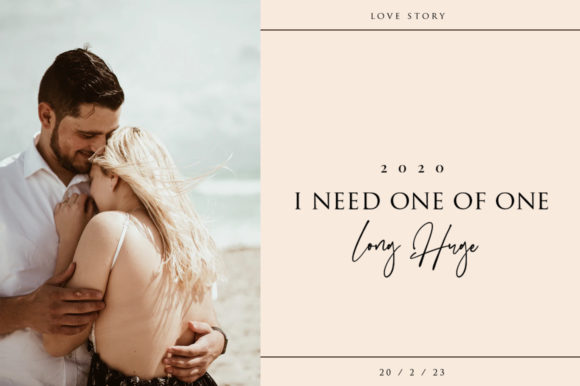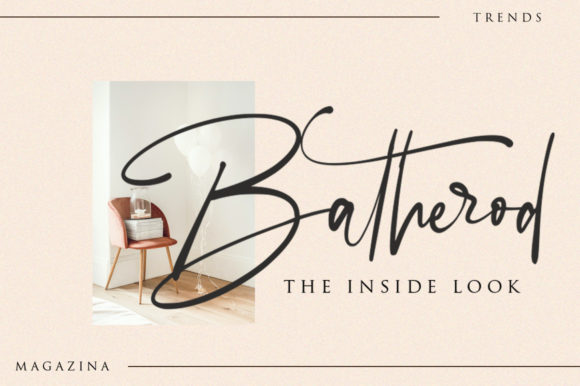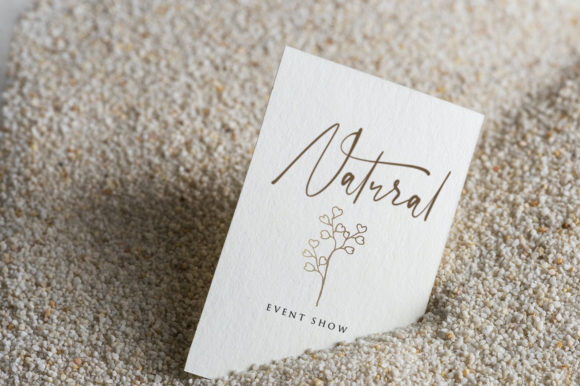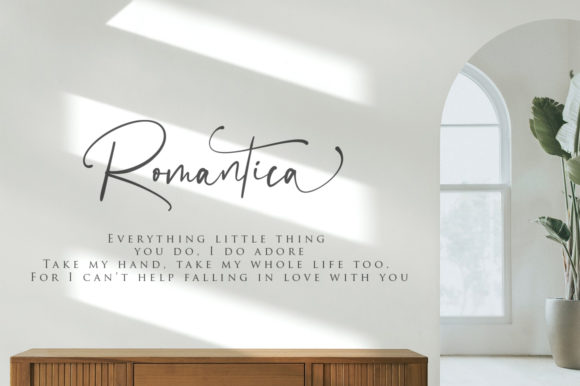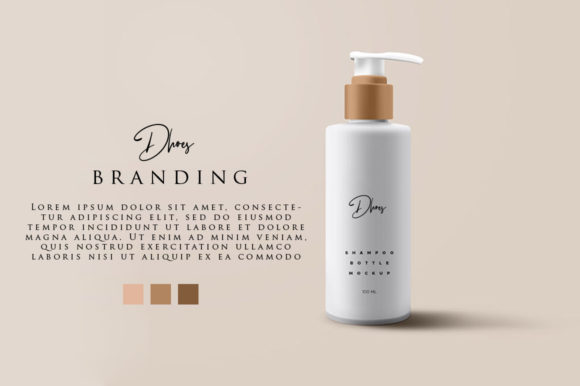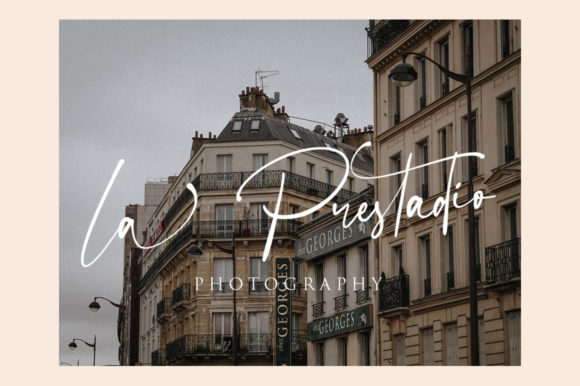
Gustera Font: A Thin and Beautiful Handwritten Masterpiece
Are you a designer or crafter looking for a unique and versatile font to elevate your designs? Look no further than Gustera Font, a thin and beautiful handwritten font that is sure to capture your heart. With its distinct and well-rounded letters, Gustera is a masterpiece that can add a touch of elegance and sophistication to any design project.
What Makes Gustera Font So Special?
Gustera Font is a one-of-a-kind handwritten font that boasts a range of characteristics that set it apart from other fonts. Here are just a few reasons why Gustera is a must-have for designers and crafters:
- Thin and elegant: Gustera Font features a thin and delicate design that exudes elegance and refinement. Its slender lines and curves make it perfect for creating sophisticated designs that require a touch of luxury.
- Beautifully rounded letters: The letters in Gustera Font are carefully crafted with rounded edges that give the font a friendly and approachable feel. This makes it ideal for designs that require a personal touch, such as invitations, greeting cards, and social media graphics.
- Versatile style: Gustera Font is incredibly versatile, making it suitable for a wide range of design projects. Whether you’re creating a logo, brochure, or website, Gustera can adapt to any style or theme.
- PUA encoded: Gustera Font is PUA (Private Use Area) encoded, which means that you can access all of the glyphs and swashes with ease. This feature makes it easy to customize your designs and add unique touches that set them apart.
Uses for Gustera Font
Gustera Font is a versatile font that can be used for a wide range of design projects, including:
- Logos and branding: Gustera Font’s elegant and sophisticated design makes it perfect for creating logos and branding materials that require a touch of luxury.
- Invitations and greeting cards: The font’s beautifully rounded letters and friendly feel make it ideal for creating invitations, greeting cards, and other personal stationery.
- Social media graphics: Gustera Font’s versatility and elegance make it perfect for creating social media graphics, such as Facebook posts, Instagram stories, and Twitter headers.
- Websites and blogs: The font’s clean and readable design makes it suitable for use on websites and blogs, where it can add a touch of sophistication and elegance to your content.
- Experiment with different sizes: Gustera Font looks great in a range of sizes, from small and delicate to large and bold. Experiment with different sizes to find the one that works best for your design.
- Pair it with other fonts: Gustera Font pairs well with a range of other fonts, including sans-serif fonts, and script fonts. Experiment with different pairings to find the one that works best for your design.
- Use it consistently: To create a cohesive look, use Gustera Font consistently throughout your design. This will help to create a strong visual identity and make your design more recognizable.
In conclusion, Gustera Font is a thin and beautiful handwritten font that is sure to capture your heart. With its distinct and well-rounded letters, versatile style, and PUA encoding, Gustera is a masterpiece that can add a touch of elegance and sophistication to any design project. Whether you’re a designer or crafter, Gustera Font is a must-have for anyone looking to create stunning designs that stand out from the crowd.